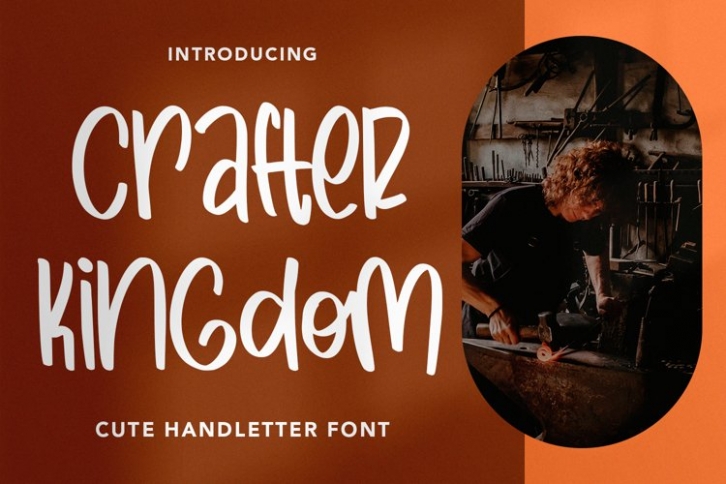
CrafterKingdom is a gorgeous font that was realeased on March 12, 2022. The font can be used in many style contexts and design environments. Perfect for invitations, magazines, websites, logos, and more! It was designed by plusstore and the file size is 9.78 MB. Thanks for checking out this font!